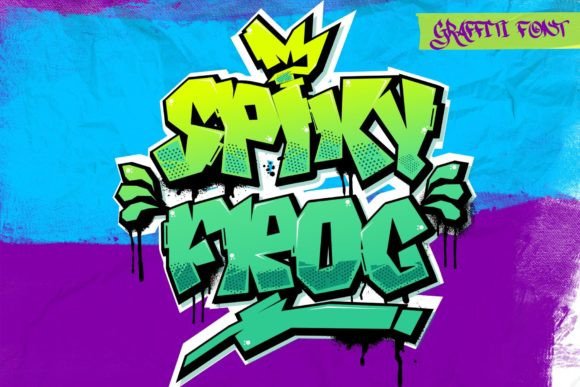
Introducing the Spiky Frog Font, the ultimate choice for those in search of the best fonts for movie posters! This display font family is the brainchild of asf-graphics, designed to captivate and inspire. With its unique graffiti style and stunning swashes, Spiky Frog is guaranteed to add a touch of magic to any design project.
Unleash your creativity and take your branding to new heights with Spiky Frog. Whether you need attention-grabbing headings, mesmerizing wedding designs, irresistible invitations, or a standout logotype, this font has got you covered. Its versatility knows no bounds, making it the perfect choice for a wide range of applications.
Imagine the impact of Spiky Frog on your wall art illustrations or apparel designs. The bold and edgy nature of this font will instantly grab attention and make a lasting impression. Stand out from the crowd and let your labels and packaging shine with the help of this remarkable font.
But Spiky Frog doesn't stop there. It has the power to transform your ordinary designs into extraordinary works of art. Let your creativity run wild and watch as this font effortlessly adds a touch of elegance and uniqueness to every project. Its captivating style will evoke emotions, leaving a lasting impression on your audience.
With Spiky Frog, the possibilities are endless. Its captivating presence will enhance your designs, captivating viewers and drawing them in with its irresistible charm. This font is not just a tool; it's a work of art that will elevate your creations to the highest level.